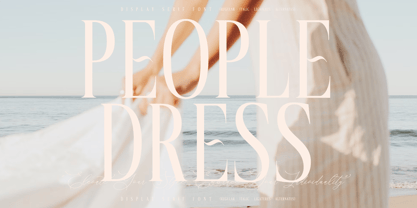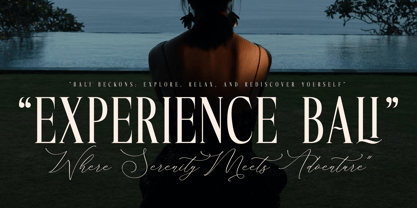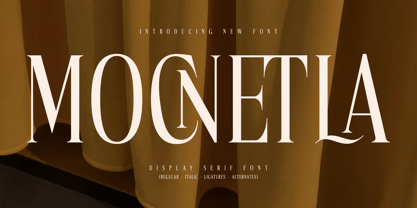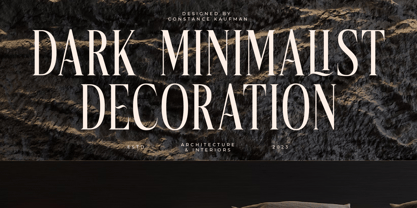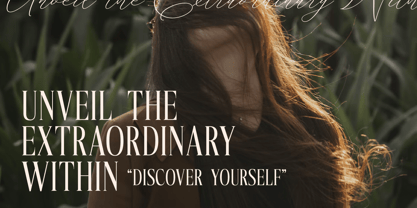
Mocnetla
The Mocnetla Font Family was designed by Heru Utama Putra and published by Letterena Studios. Mocnetla contains 2 styles and family package options. More about this family
Mocnetla is a modern and classy serif font perfect for elegant and luxury logos, book or movie title designs, fashion brands, magazines, clothes, lettering, quotes, and so much more.